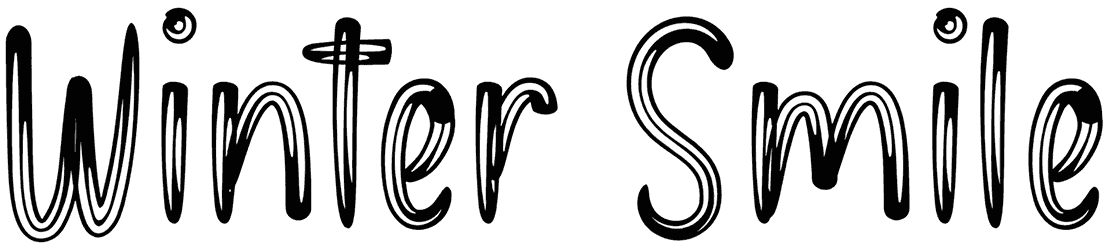
Winter Smile Font
Say hi to Winter Smile, a scribbled font with an adorable and funny vibe. This fancy font has a hand-style face and playful letterforms. To make a unique design, such as posters, t-shirts, illustrations, and the rest, try Winter Smile and delight in how it will be harmonized with them.